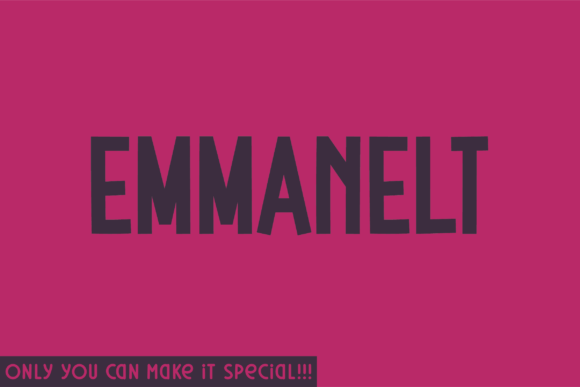
Discover the Unique Charm of Emmanelt Font: A Natural Handwritten Typeface
The world of typography is vast and diverse, with countless fonts available for designers to choose from. However, some fonts stand out from the rest due to their unique characteristics and versatility. One such font is Emmanelt, a natural handwritten typeface that has been making waves in the design community. In this article, we’ll delve into the features and benefits of Emmanelt font, and explore how it can elevate your design projects.
The Story Behind Emmanelt Font
Emmanelt font is a carefully crafted typeface that boasts a distinctive, handwritten look. What sets it apart from other fonts is its unique approach to character indentation. Unlike many fonts that rely on adjusted nodes to achieve a specific aesthetic, Emmanelt’s creator has opted to leave each character’s indentation untouched. This decision results in a font that exudes a sense of authenticity and naturalness, making it perfect for designs that require a personal touch.
Key Features of Emmanelt Font
- Natural Handwritten Look: Emmanelt font features a genuine, handwritten appearance that adds a touch of warmth and personality to any design.
- Unique Character Indentation: By not altering a single node in each character’s indentation, Emmanelt achieves a distinctive, organic feel that sets it apart from other fonts.
- Versatility: This font is suitable for a wide range of design applications, including quotes, notes, tees, and product design.
Use Cases for Emmanelt Font
Emmanelt font’s versatility makes it an excellent choice for various design projects. Here are some use cases where Emmanelt shines:
1. Quotes and Typography
Emmanelt font is ideal for creating visually appealing quotes, sayings, and phrases. Its natural, handwritten look adds an emotional touch, making quotes more relatable and engaging.
2. Note-taking and Journaling
The font’s organic feel makes it perfect for note-taking and journaling applications. Emmanelt font can add a personal touch to digital or print journals, making them more enjoyable to use.
3. T-Shirt and Merchandise Design
Emmanelt font’s unique character indentation and natural look make it an excellent choice for designing t-shirts, hoodies, and other merchandise. The font’s personality shines through, creating eye-catching and memorable designs.
4. Product Design and Branding
Emmanelt font can also be used in product design and branding projects. Its distinctive look can help create a unique visual identity for products, packaging, or labels, setting them apart from competitors.
Why Choose Emmanelt Font?
With so many fonts available, why choose Emmanelt? Here are some compelling reasons to consider:
1. Uniqueness
Emmanelt font’s untouched character indentation makes it a one-of-a-kind typeface that can add a fresh touch to your designs.
2. Authenticity
The font’s natural, handwritten look creates an authentic feel that resonates with audiences.
3. Versatility
Emmanelt font’s adaptability makes it suitable for a wide range of design applications, from digital projects to print materials.
4. Community Engagement
The creator of Emmanelt font encourages feedback and engagement from the design community, fostering a sense of connection and collaboration.
Emmanelt font is a unique and captivating typeface that offers a fresh perspective on handwritten fonts. Its natural, organic look and untouched character indentation make it perfect for designers seeking to add a personal touch to their projects. With its versatility and authenticity, Emmanelt font is sure to become a go-to choice for designers looking to create memorable and engaging designs.